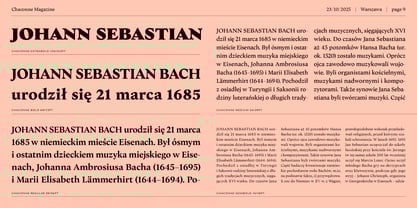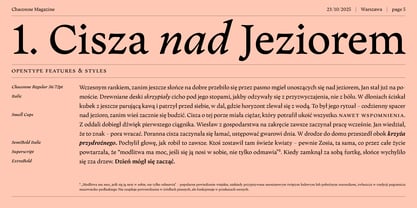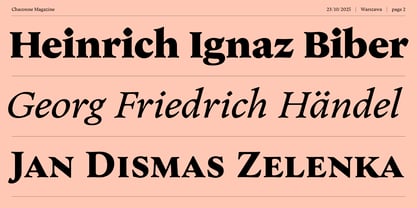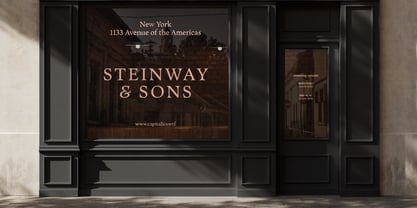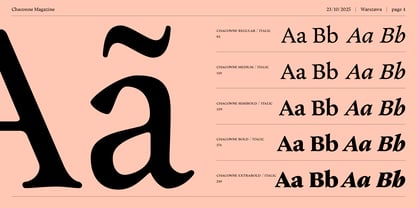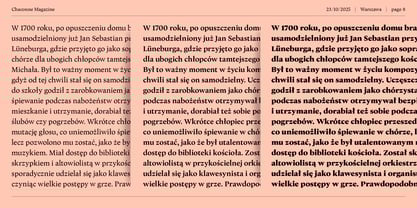
Chaconne
by Machalski
The Chaconne Font Family was designed by Mateusz Machalski and published by Machalski. Chaconne contains 10 styles and family package options. More about this family
Chaconne is a serif typeface with an organic character. Like the Baroque dance chaconne, where a recurring theme becomes the framework for endless variations. Chacone is built on a repeating rhythm and a richness of subtle variations. Its foundation grows out of a reinterpretation of classic typefaces: Excelsior and the warm, Renaissance-inspired Goudy Old Style. It was created without grids or modules, for me, it was a great challenge to trust the eye and work in the spirit of the old masters. This gives the entire family its softness and organic flow. Chacone combines the rhythm of form with the delicacy of detail, while also allowing room for moments of expression. Chaconne is blur, mass, and subtle – a kind of typographic suite that invites a calm and sensitive reading. As in music, where the steady bass of a chaconne gives rise to endless variations, here classical inspirations lead to the creation of a harmonious, personal typographic story. The family consists of five weights complemented by an organic italic. The project was creatively directed by Mateusz Machalski, with contributions from Karol Mularczyk, Weronika Kanigowska, Jakub Maślak, Małgorzata Bartosik and Borys Kosmynka
Designers: Mateusz Machalski
Foundry: Machalski